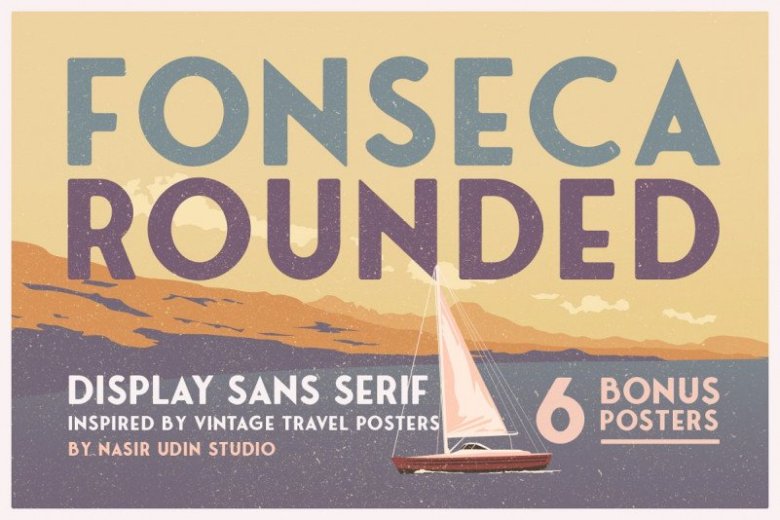
Fonseca Rounded Typeface
This is display sans serif font. It is a unique attempt to create a never before seen symphony of text and decorative type that spans in multiple usable widths and weights. Introducing Fonseca Rounded Font. It’s designed and shared by Nasir Udin. Inspired by Vintage Travel Posters, Fonseca Rounded is a beautiful sans serif font with a contemporary feel. Get inspired by its timeless and classic appeal. This display sans serif family is perfect for headlines, posters, logos, branding projects, magazines, and packaging.